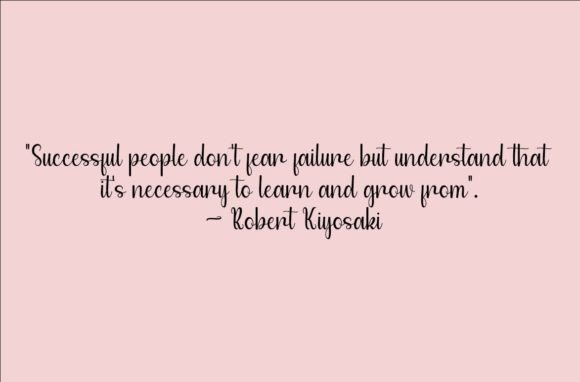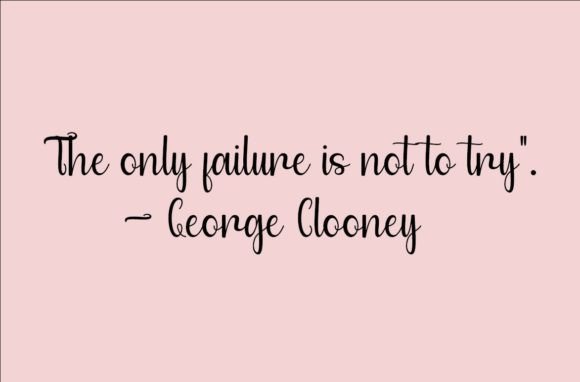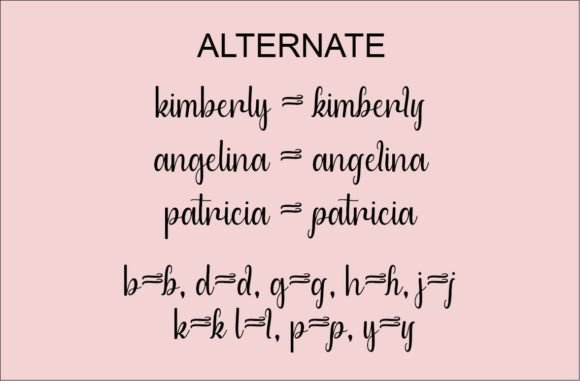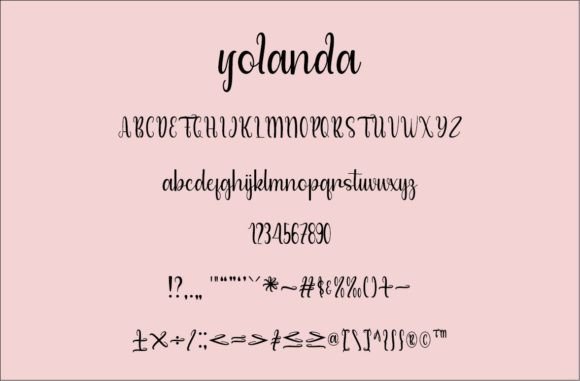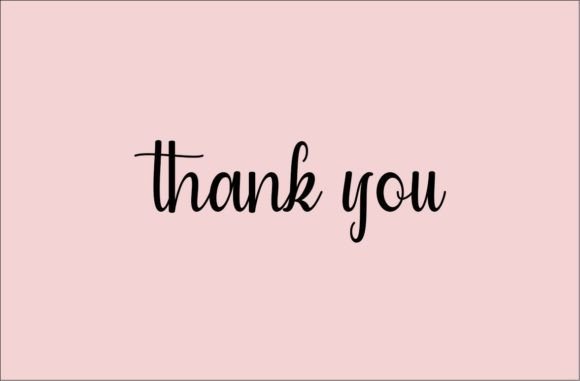
About Yolanda Font
“Yolanda” is a font that possesses a captivating charm with its enchanting handwritten style. Its versatility knows no bounds, making it a valuable asset for a myriad of creative applications. From crafting elegant greeting cards to designing eye-catching headlines and beyond, “Yolanda” adds a touch of uniqueness and sophistication to every project it graces. Its distinctive personality and adaptability make it a must-have addition to your fonts library.
One of the standout features of “Yolanda” is its ability to seamlessly integrate into various design contexts. Whether you’re working on a heartfelt message for a greeting card, creating engaging social media posts, or designing a professional logo, this font effortlessly elevates the visual appeal of your content. Its handwritten charm exudes authenticity and warmth, making it particularly suitable for projects that require a personal touch.
In the realm of greeting cards, “Yolanda” shines brightly. Its enchanting strokes and graceful curves transform ordinary words into heartfelt expressions, creating cards that are not just pieces of paper, but tokens of emotion. Whether you’re celebrating birthdays, weddings, or other special occasions, “Yolanda” adds an element of elegance that enhances the sentiment behind your words. Recipients will not only read the message but also feel the sincerity and thoughtfulness behind it.
When it comes to headlines, “Yolanda” commands attention. Its unique handwritten aesthetic draws the eye, making headlines visually appealing and memorable. Whether you’re designing a magazine cover, a website banner, or a promotional poster, “Yolanda” ensures that your message stands out, leaving a lasting impression on your audience. Its versatility in this regard allows you to experiment with various styles, from playful and casual to elegant and refined.
Beyond its applications in print media, “Yolanda” excels in digital platforms as well. In the age of social media, where visuals play a pivotal role, this font adds a touch of personality to your posts and graphics. From Instagram stories to Facebook banners, “Yolanda” injects creativity into your online presence, making your content visually appealing and shareable.
In conclusion, “Yolanda” is more than just a font; it’s a creative companion that enhances the essence of your designs. Its enchanting handwritten style, coupled with its versatility and adaptability, makes it an invaluable tool for designers, content creators, and anyone with a passion for creativity. So, don’t miss the opportunity to add this charming font to your collection. Let “Yolanda” be the brushstroke of elegance and individuality in your design palette, enriching each of your creations with its magical allure.